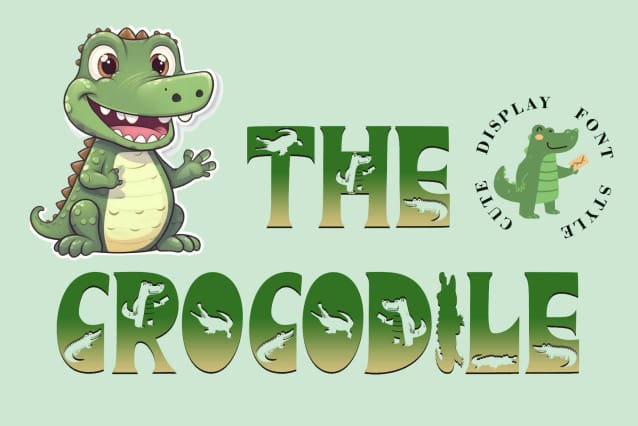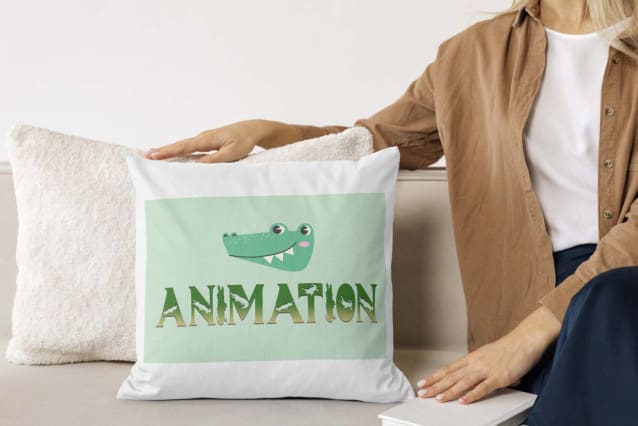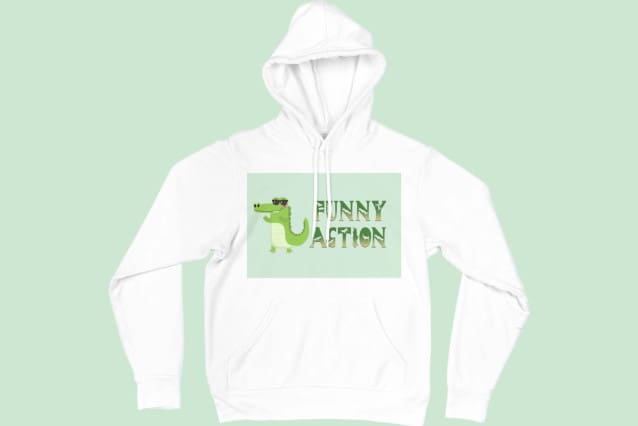
The Crocodile Font
The Crocodile Font is a unique and cute display font. This font is equipped with uppercase, lowercase, numerals, punctuations and multilingual support. Very suitable for stickers, banners, logos, branding, posters, prints, funny films, comics, cartoons, animals and others.